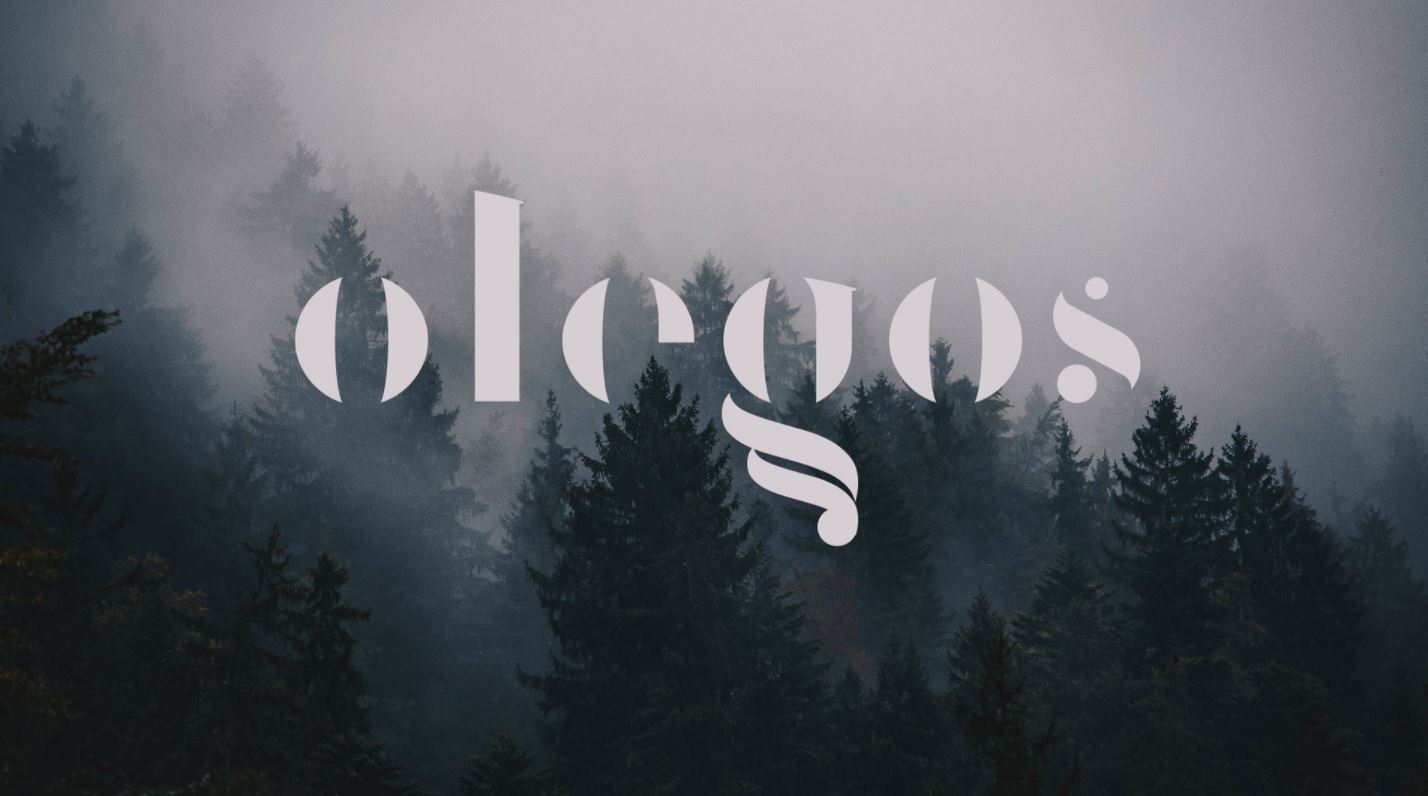
If you’re searching for a minimal yet dramatic typeface for your next design project, consider the Olegos font, a unique and stylish option that’s available as a free download from Behance, and will add a funky edge to any creation.
Olegos- Free Designer Font
If you’re searching for a minimal yet dramatic typeface for your next design project, consider the Olegos font, a unique and stylish option that’s available as a free download from Behance, and will add a funky edge to any creation.